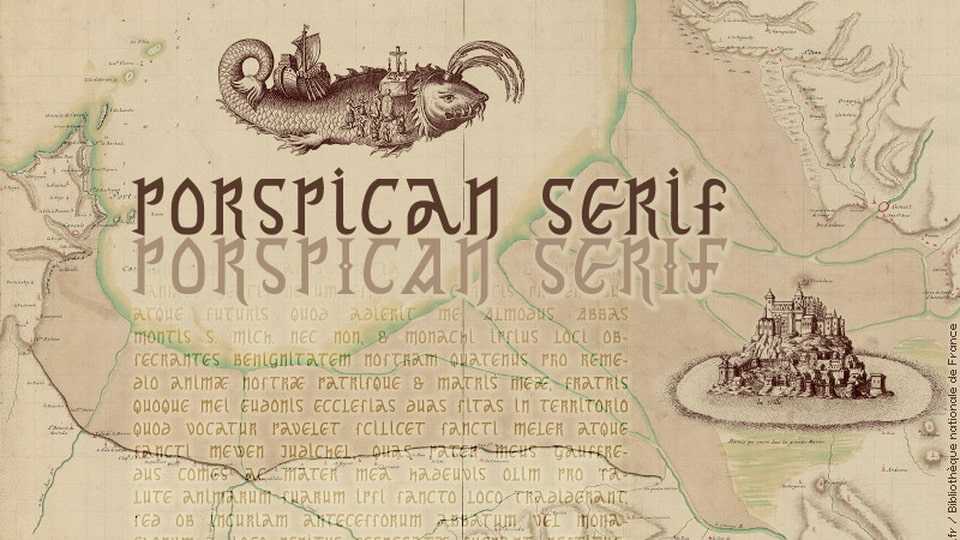
Download Porspican Serif font, a display typeface created from decorative titles that used to hand write on the CDs a decade ago, inspired then by various favorite fonts.